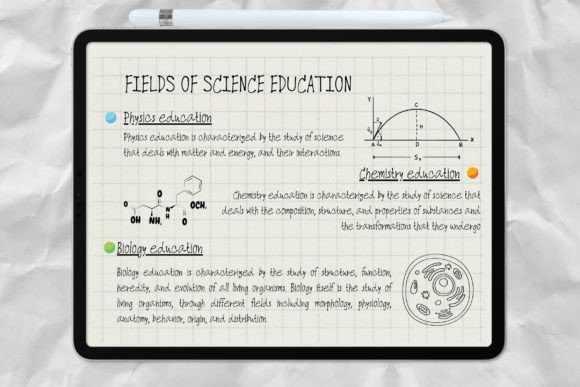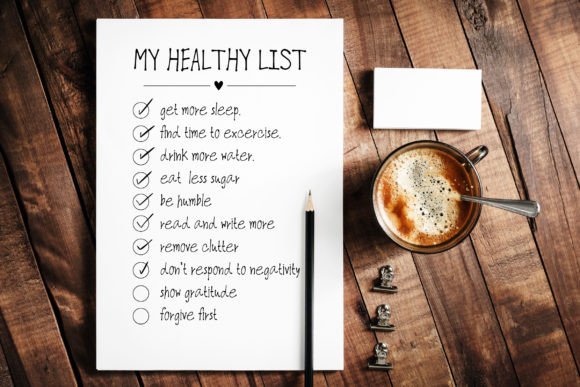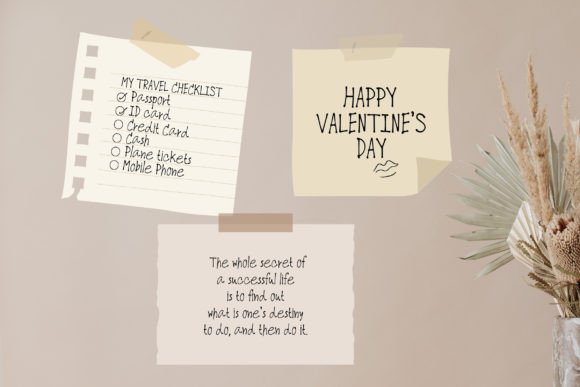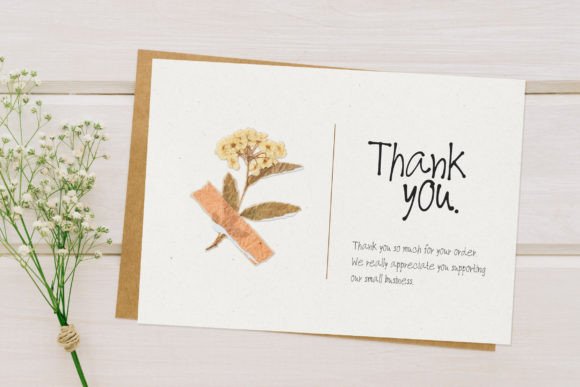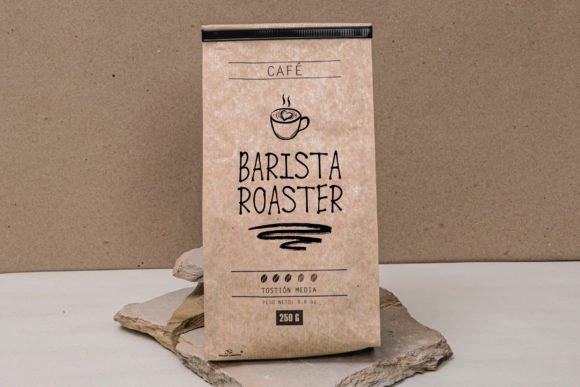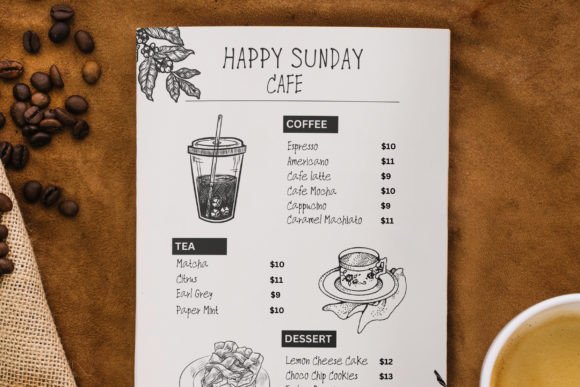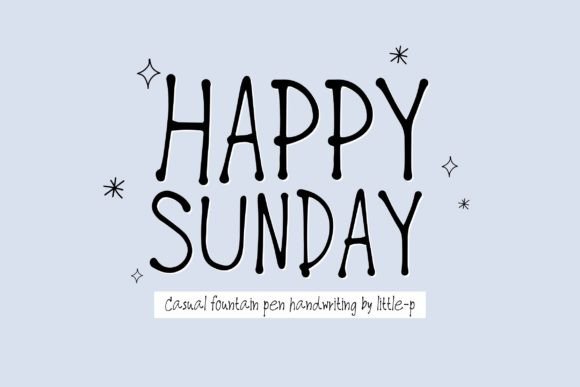
Introducing Happy Sunday Font: Elevate Your Creations with a Relaxed and Friendly Touch
Are you tired of using fonts that are too formal or rigid? Do you want to add a personal touch to your designs and make them feel more approachable? Look no further than the Happy Sunday font, a beautiful and casual script font that captures the essence of handwriting with a fountain pen. With its relaxed and friendly vibe, this font is perfect for a wide range of applications, from note-taking and digital planners to greeting cards and branding.
The Inspiration Behind Happy Sunday Font
The Happy Sunday font is inspired by the carefree feeling of a lazy Sunday morning. Imagine sipping coffee, writing in your journal, and enjoying the quiet morning hours. This font embodies that feeling, with a flowing and natural script that feels like it was written with a fountain pen. The result is a font that is both elegant and approachable, perfect for adding a personal touch to your designs.
What Makes Happy Sunday Font So Versatile?
One of the best things about the Happy Sunday font is its versatility. This font can be used in a wide range of applications, including:
• Note-taking: Add a personal touch to your notes and make them feel more like a conversation with a friend.
• Digital planners: Create a warm and inviting digital planner that feels like a cozy morning routine.
• Traditional planners: Add a touch of elegance to your traditional planner with a font that feels like handwriting.
• Journals: Write in your journal with a font that feels like a trusted friend.
• Educational notes: Make learning feel more approachable with a font that is both fun and elegant.
• Goodnotes: Add a personal touch to your Goodnotes and make them feel more like a handwritten note.
• Greeting cards: Create greeting cards that feel like a warm hug from a friend.
• Quotes: Add a touch of elegance to your quotes with a font that feels like handwriting.
• Handwritten notes: Write handwritten notes that feel like a conversation with a friend.
• Branding: Add a personal touch to your brand with a font that feels approachable and friendly.
The Benefits of Using Happy Sunday Font
So why choose the Happy Sunday font for your next project? Here are just a few benefits:
• Easygoing vibe: This font effortlessly infuses your projects with a relaxed and friendly vibe, making every day feel like a happy Sunday.
• Warmth and approachability: The Happy Sunday font radiates warmth and approachability, making it perfect for designs that need to feel personal and inviting.
• Flexibility: This font can be used in a wide range of applications, from digital planners to greeting cards.
• Elegance: Despite its casual feel, the Happy Sunday font is still elegant and refined, making it perfect for designs that need to feel sophisticated.
How to Use Happy Sunday Font in Your Designs
Using the Happy Sunday font in your designs is easy. Here are a few tips to get you started:
• Pair it with other fonts: The Happy Sunday font pairs well with other fonts, such as sans-serif fonts or serif fonts. Experiment with different combinations to find the one that works best for your design.
• Use it for headings and body text: The Happy Sunday font is perfect for both headings and body text. Use it to create a cohesive look that feels like handwriting.
• Add some flair: Don’t be afraid to add some flair to your design with the Happy Sunday font. Use it to create decorative elements, such as borders or icons.